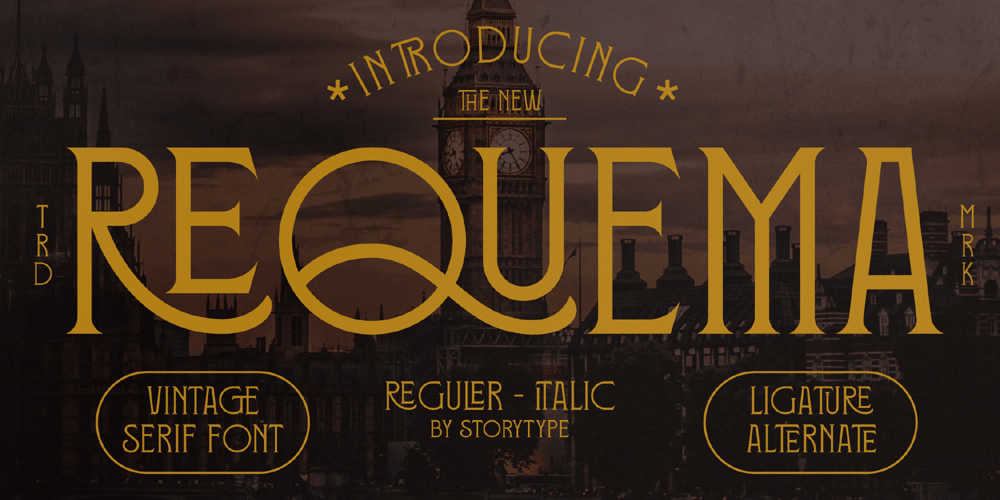
Requma Font Family was designed by Heru Utama Putra and published by Letterena Studios. Requma contains 2 styles and family package options. Proudly present Requema.A modern and classic serif typeface that has a unique style & modern look.This typeface is perfect for an elegant & luxury logo, book or movie title design, fashion brand, magazine, clothes, lettering, quotes, and so much more.This font is PUA encoded, which means you can access all of the glyphs and swashes with ease!**Uppercase